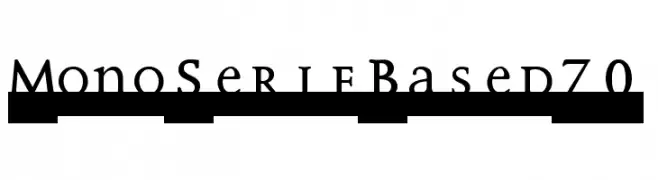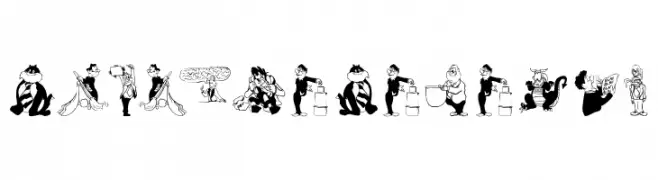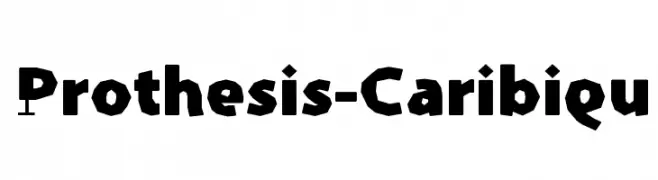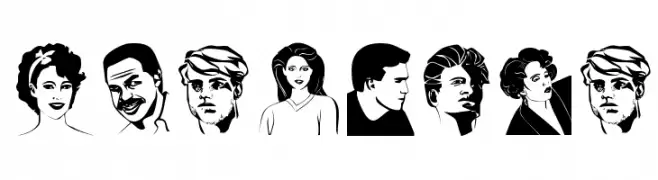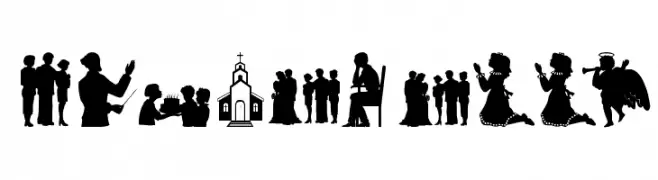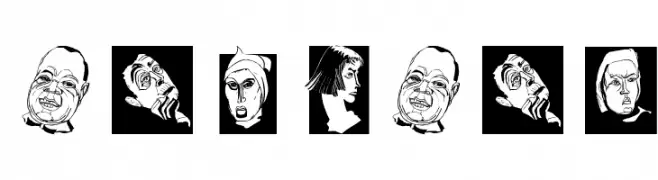
A display font made up of illustrated human faces for each character.
Cartoonish, political caricature font with unique illustrated glyphs.
Portrait-based decorative font with illustrated human faces.
Abstract, creature-inspired decorative font with hand-drawn style.
A quirky, decorative font with surreal, illustrated stick-figure characters.
Whimsical pictogram font with abstract and stick-figure characters.
A bold, angular font with a modern and edgy style.
Silhouette-based font using family and people scenes as letterforms.
A bold, artistic font with eye motifs and abstract, whimsical design.
A monospaced serif font combining classic elegance with modern uniformity.